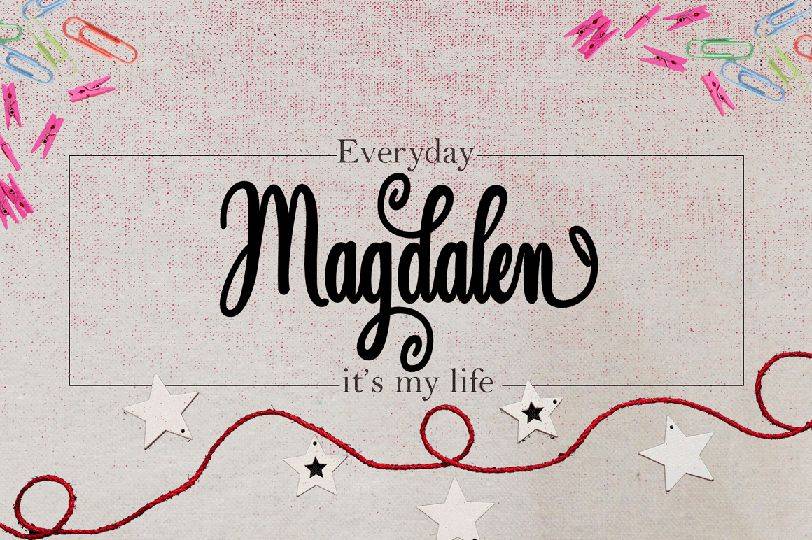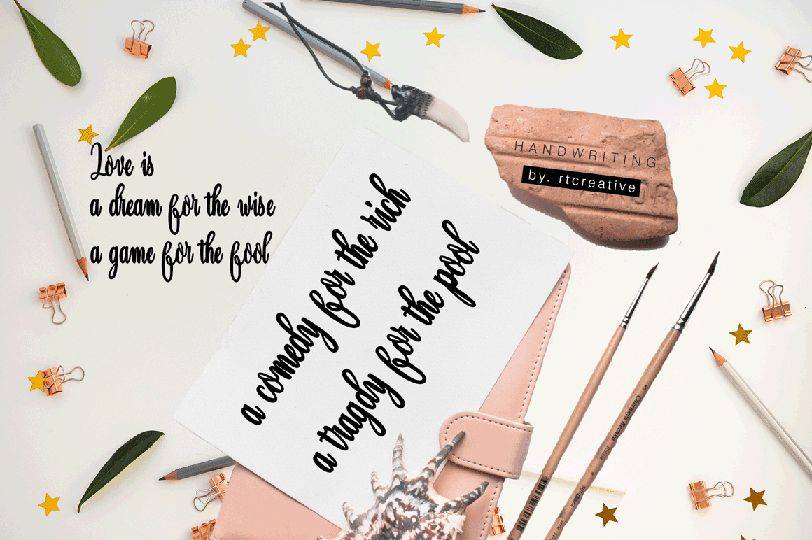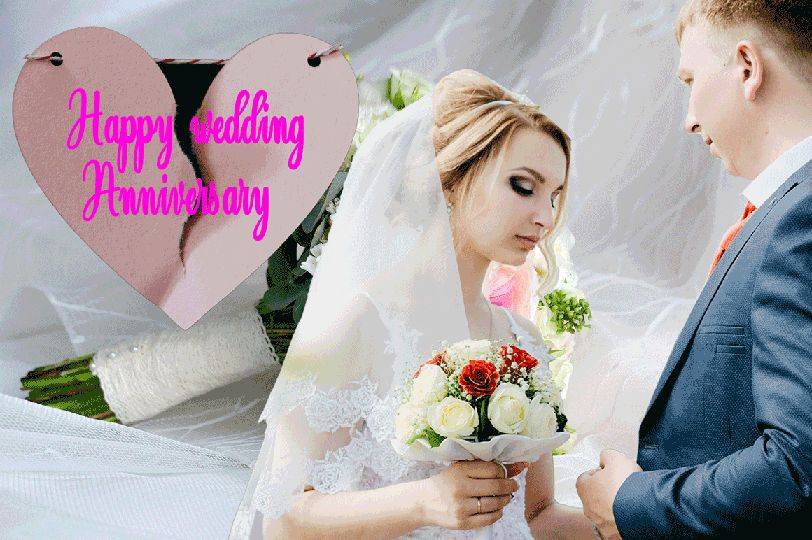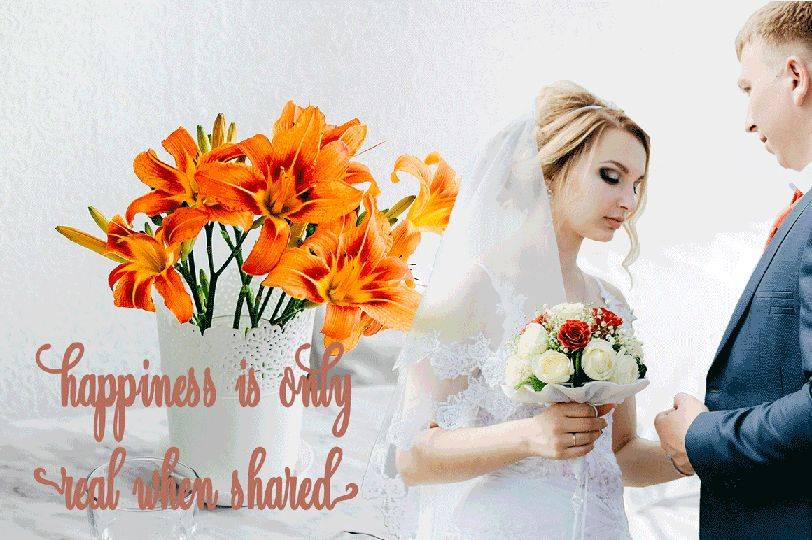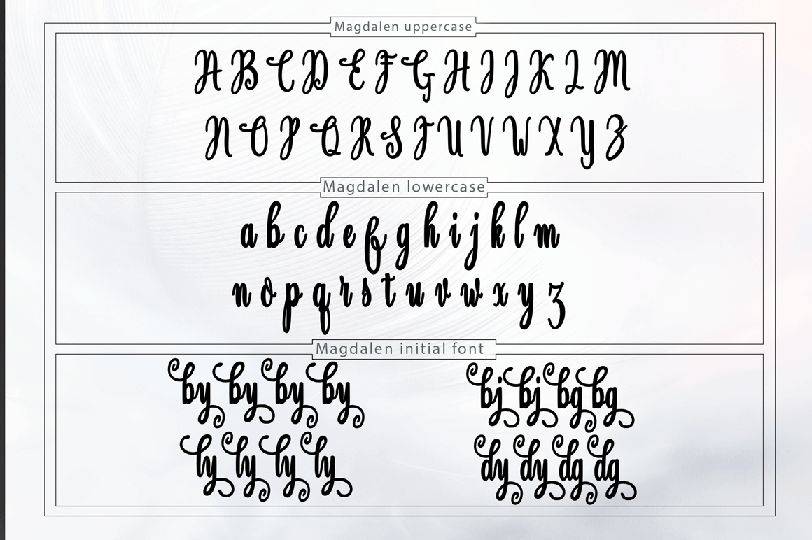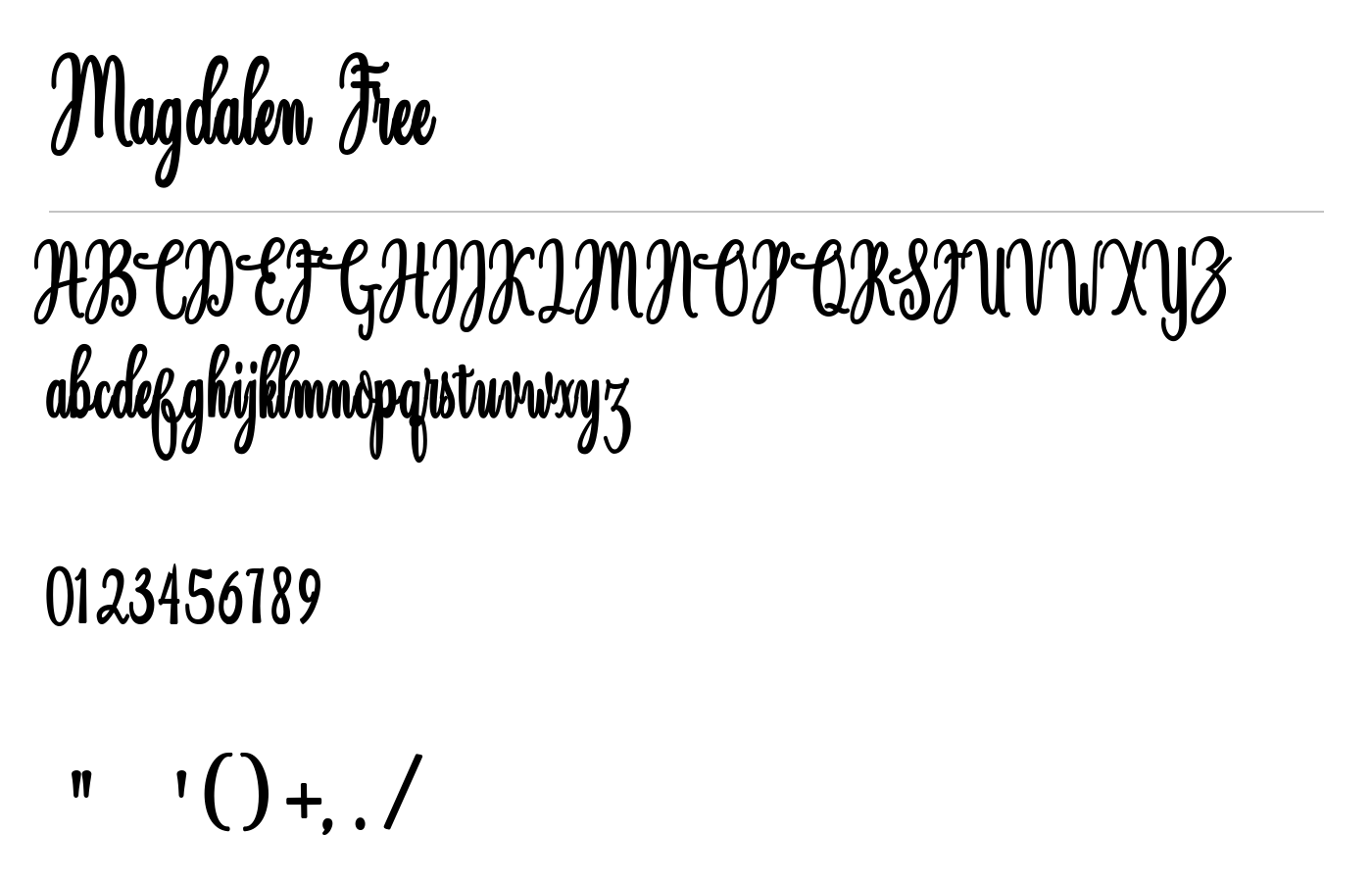
Magdalen Font is a playful and charming script typeface featuring tall, narrow letterforms with smooth, rounded strokes that create a handwritten feel. Its connected, flowing characters offer a casual yet elegant style perfectly suited for creative projects like invitations, branding, and headlines that seek a warm, personal touch. This font shines in design contexts where an informal, friendly vibe is desired without sacrificing readability.
Magdalen Font
About Magdalen Font